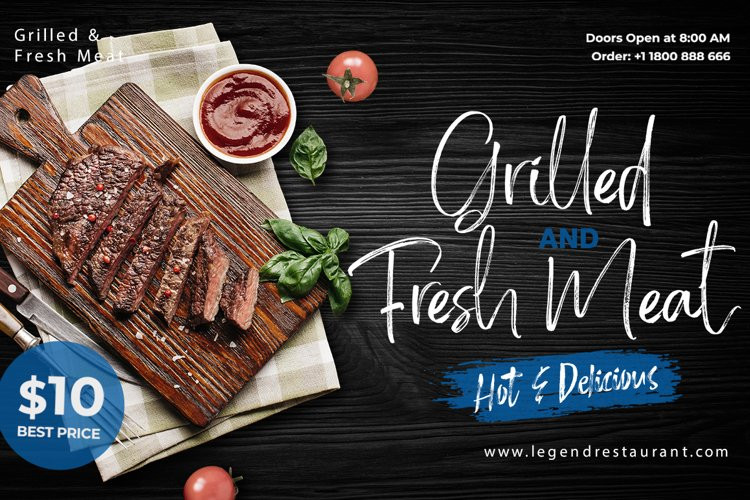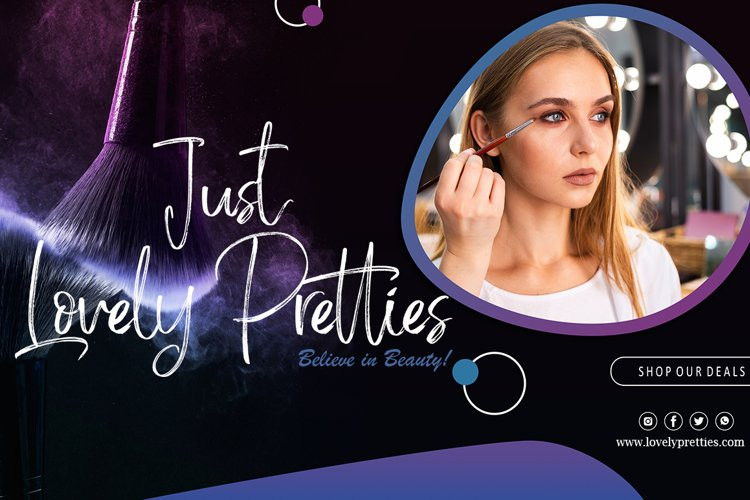
Smoltimes Font
Smoltimes FontSmoltimes are two variations of a new modern brush font with irregular baselines. a contemporary approach to design, handcrafted in nature, perfect for use in title designs such as clothing, invitations, book titles, stationery designs, quotes, branding, logos, greeting cards, t-shirts, packaging designs, posters and more.